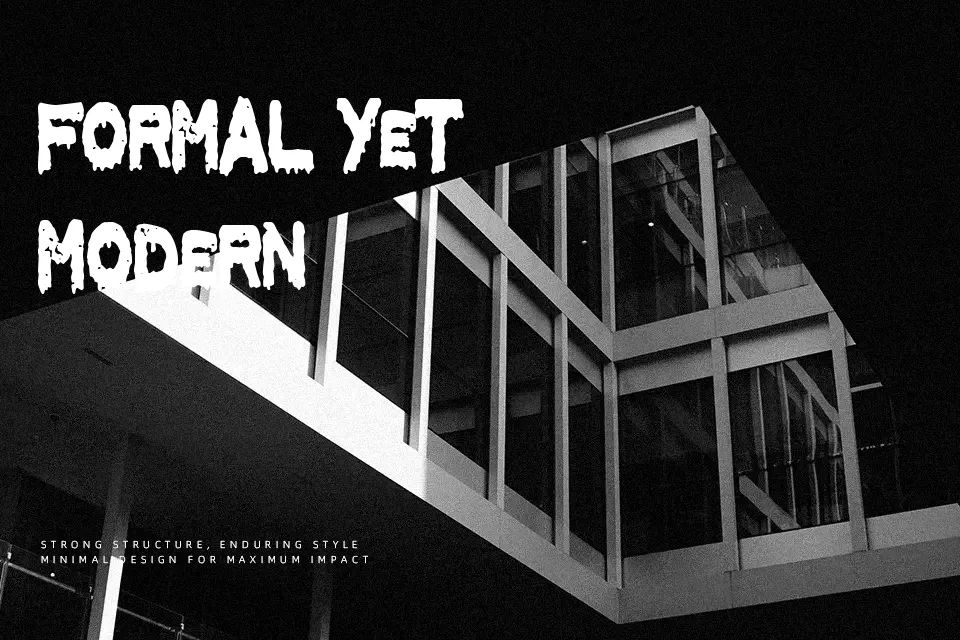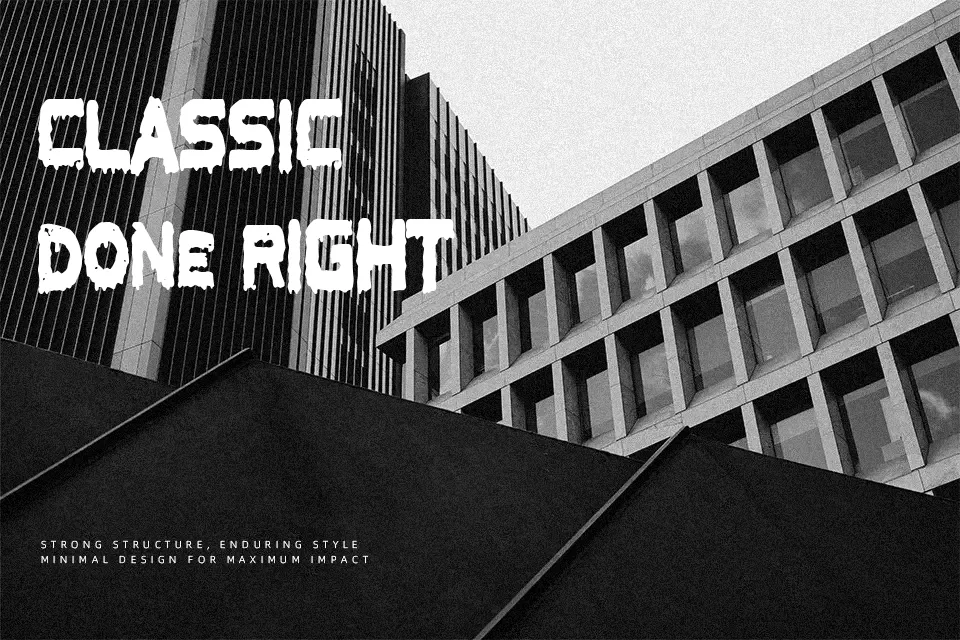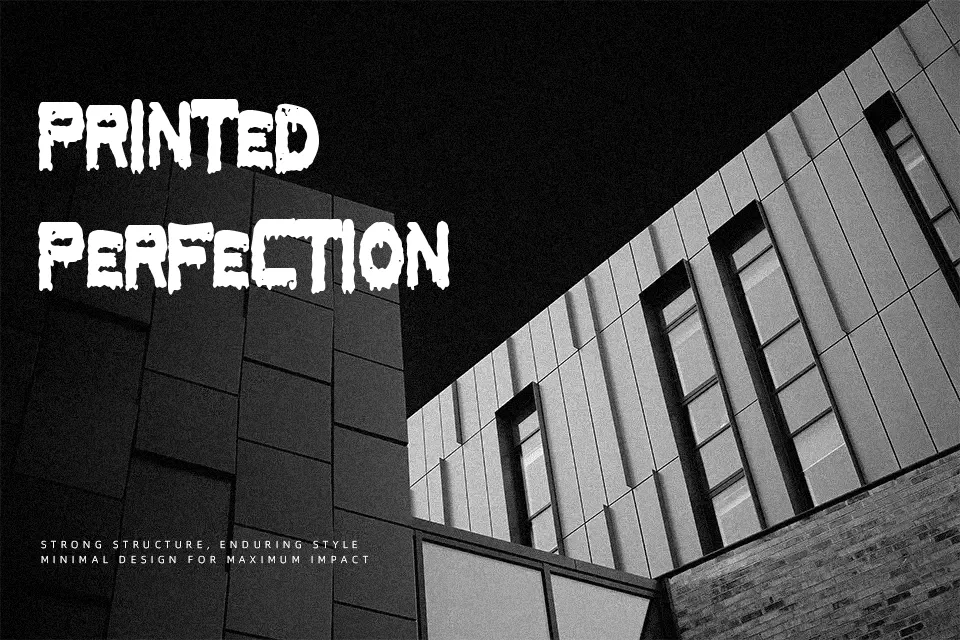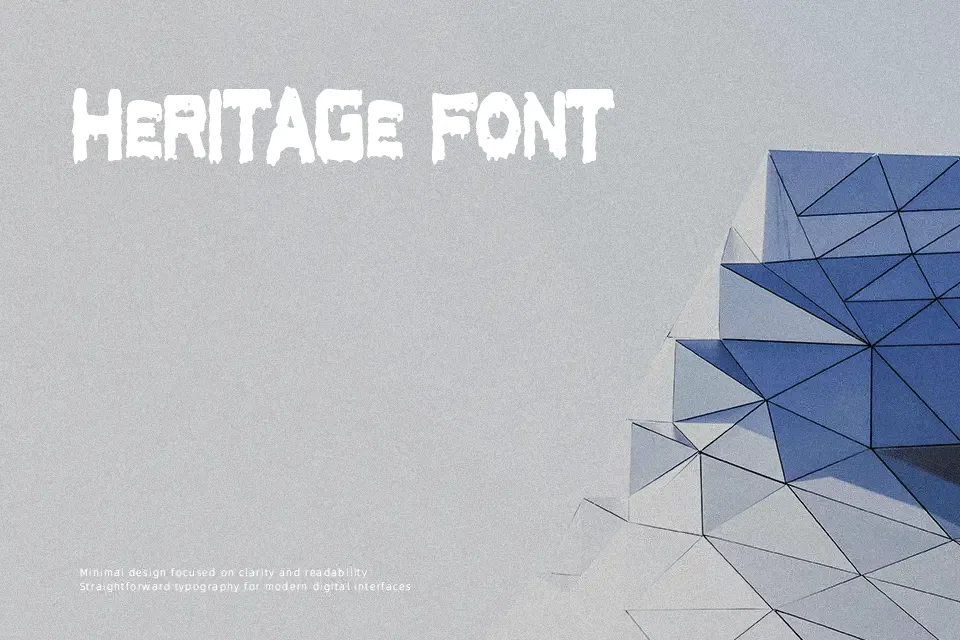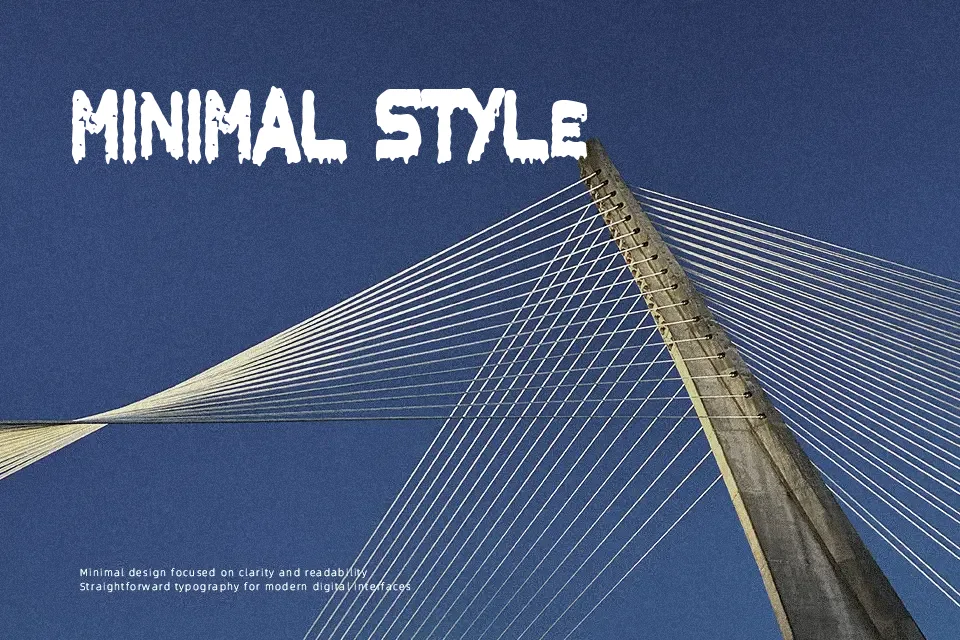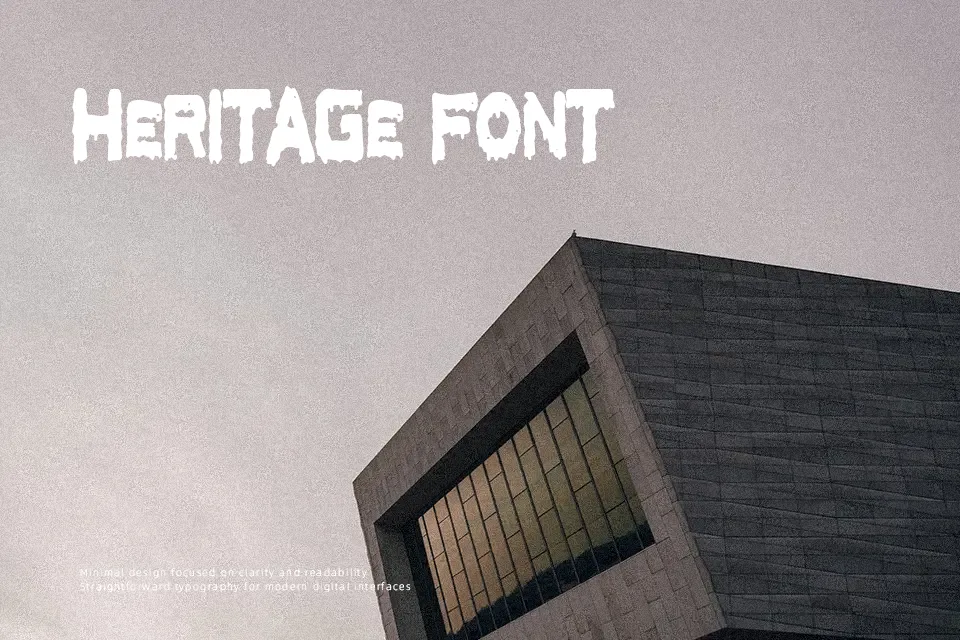
New Terror Font
New Terror opens with rigid, angular letterforms that sit on mostly straight verticals, then break into splintered outlines and chipped edges that give each character a rough, eroded feel. The strokes are thick and relatively even in weight, but the torn contours and occasional inner gaps create strong visual texture rather than smooth shapes. Spacing sits on the tighter side, so the forms cluster into dense word images that read clearly at larger display sizes while emphasizing their aggressive structure. At medium sizes the design still holds up for short phrases or headlines, but fine details and heavy distress make it less comfortable for small captions or extended reading. The overall impression is intentionally harsh, and the decorative damage becomes its main strength in bold, short text.
horror movie posters
haunted house flyers
metal band logos
halloween event titles
technical documentation
Perfect for gaming, halloween, and headline, with a dark and decorative style.